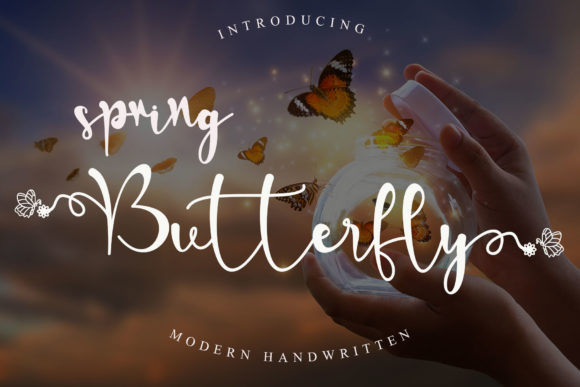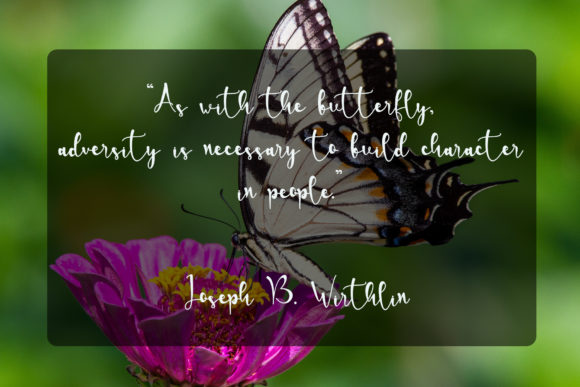
About Spring Butterfly Font
Spring Butterfly is a modern handwritten font which is uniquely designed with a beautiful butterfly shape.
Celebrate spring with great warmth!